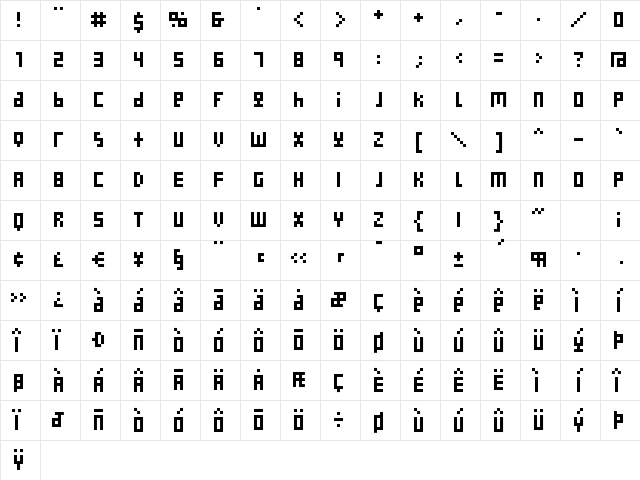
Complete Nanoscopics Alphabet glyph index. Displaying only characters natively supported by Nanoscopics Alphabet font.
Nanoscopics is a composed and adaptable typeface that performs quietly and consistently across a wide range of design contexts.